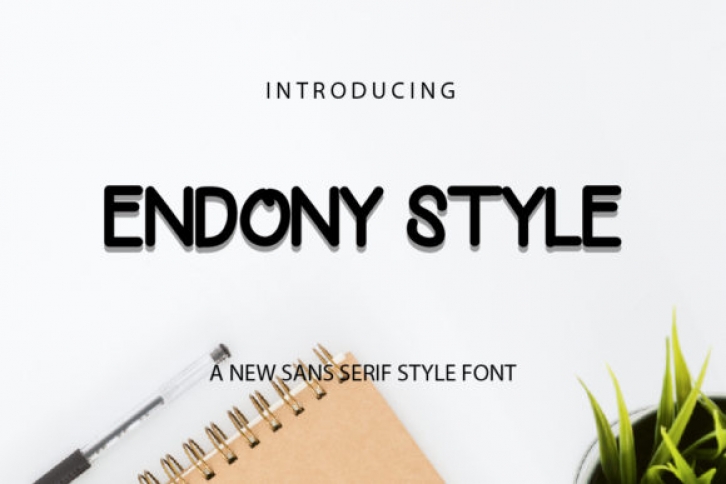
Endony Style is a sweet and neat lettered sans serif font. It can easily be matched to an incredibly large set of projects, so add it to your creative ideas and notice how it makes them stand out!